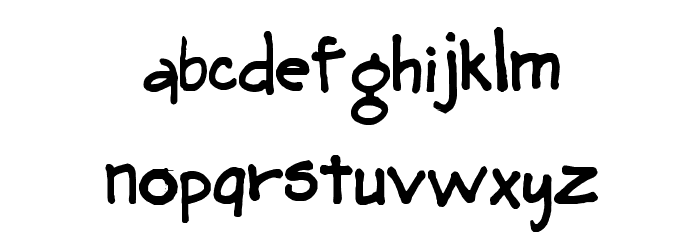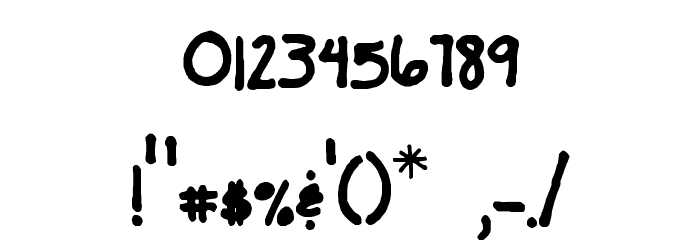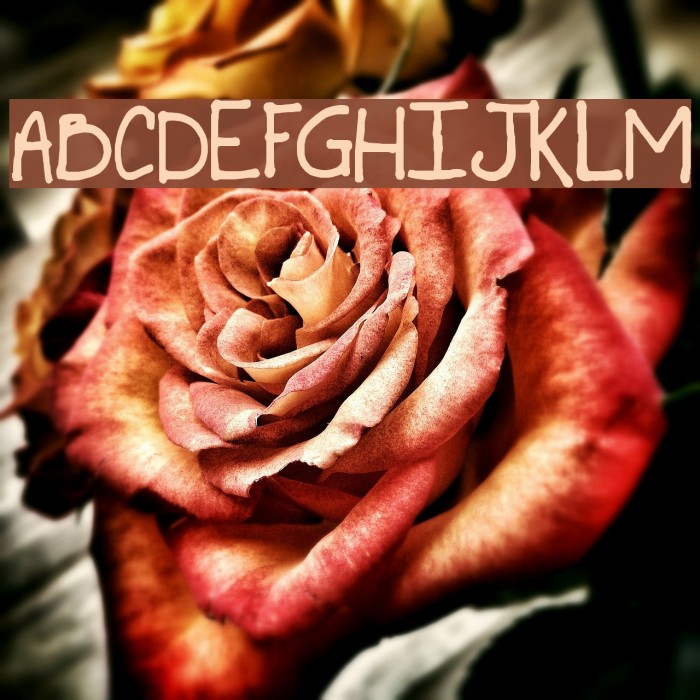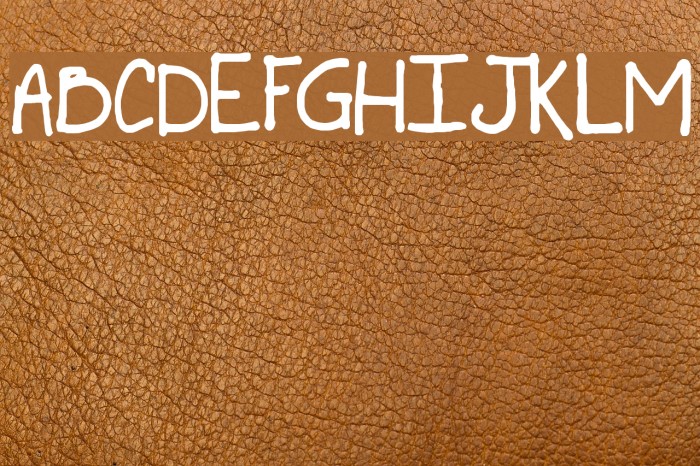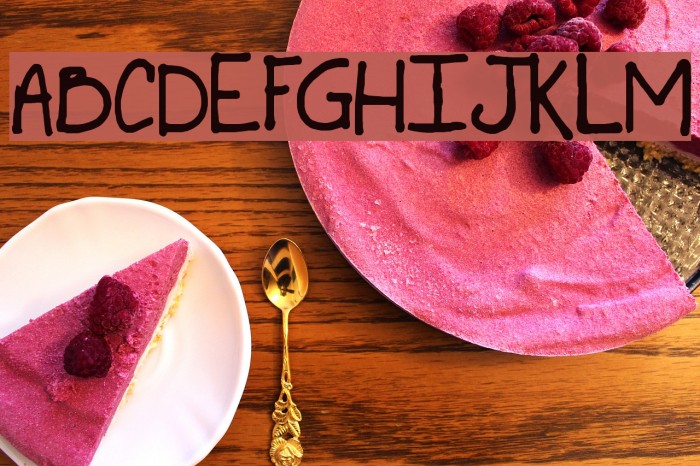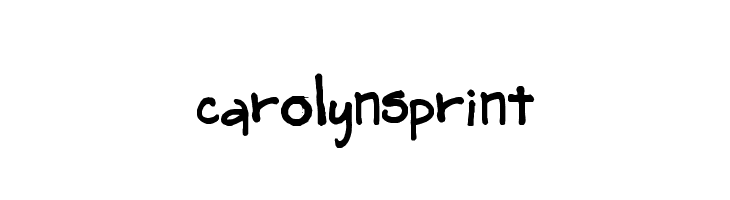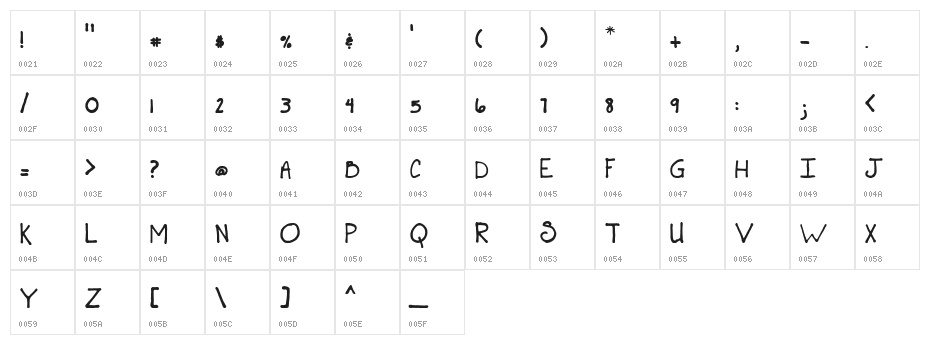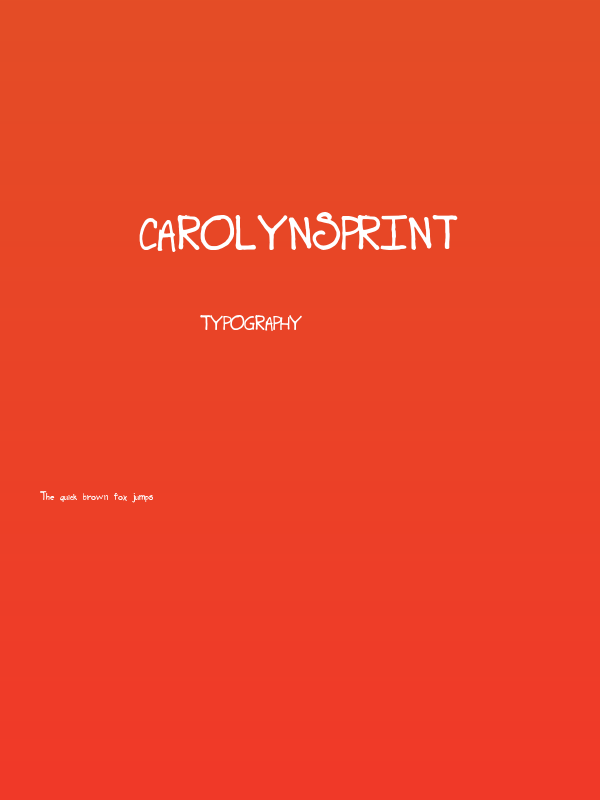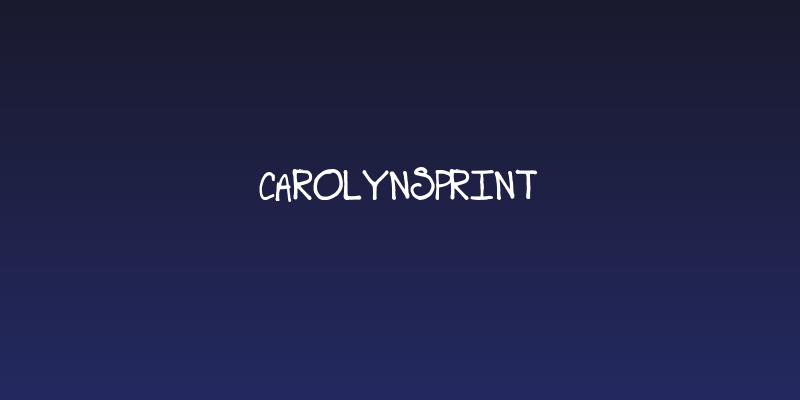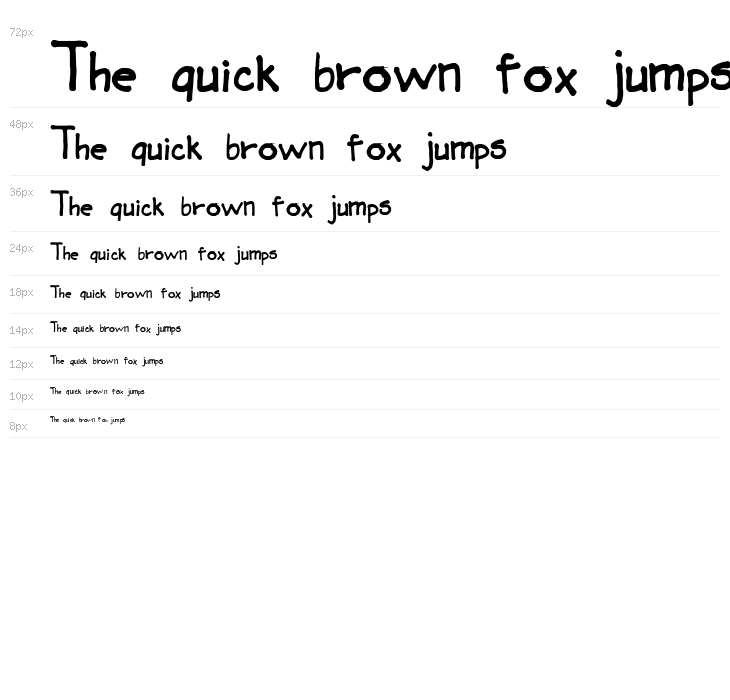
carolynsprint Font
This playful and informal font features a handwritten style with a casual and friendly appearance. The characters are slightly irregular, adding a personal touch that mimics natural handwriting. The uppercase letters are bold and prominent, while the lowercase letters maintain a consistent flow with rounded edges. Numbers and special characters are designed to match the overall style, ensuring cohesion across all text elements. The font's unique charm makes it suitable for projects that require a personal or whimsical touch.
- Proposed Projects: Ideal for greeting cards, children's books, casual invitations, and playful branding projects.
- Overall Style: Casual, Playful
- Use Case: Headlines, Informal text, Creative projects